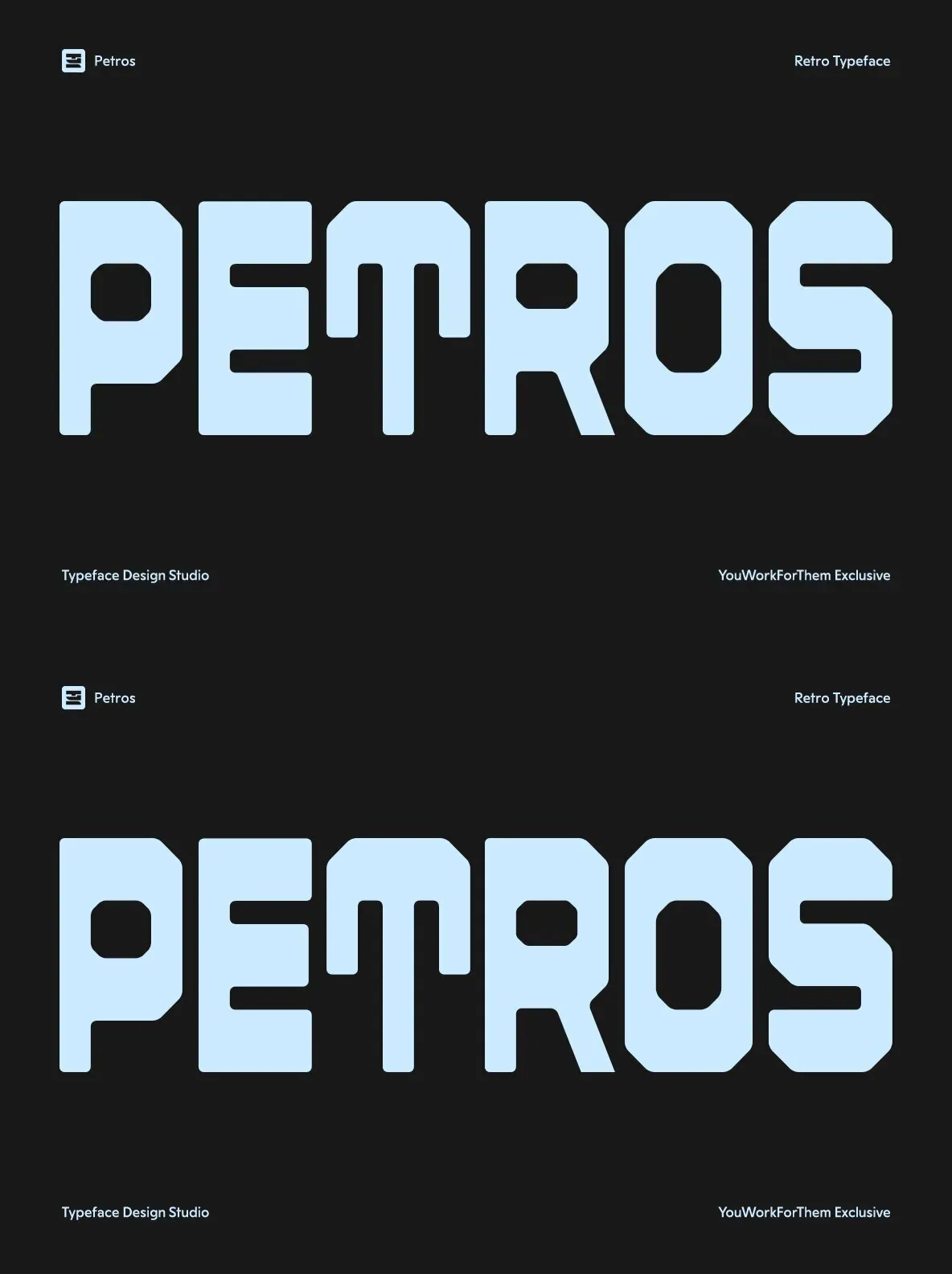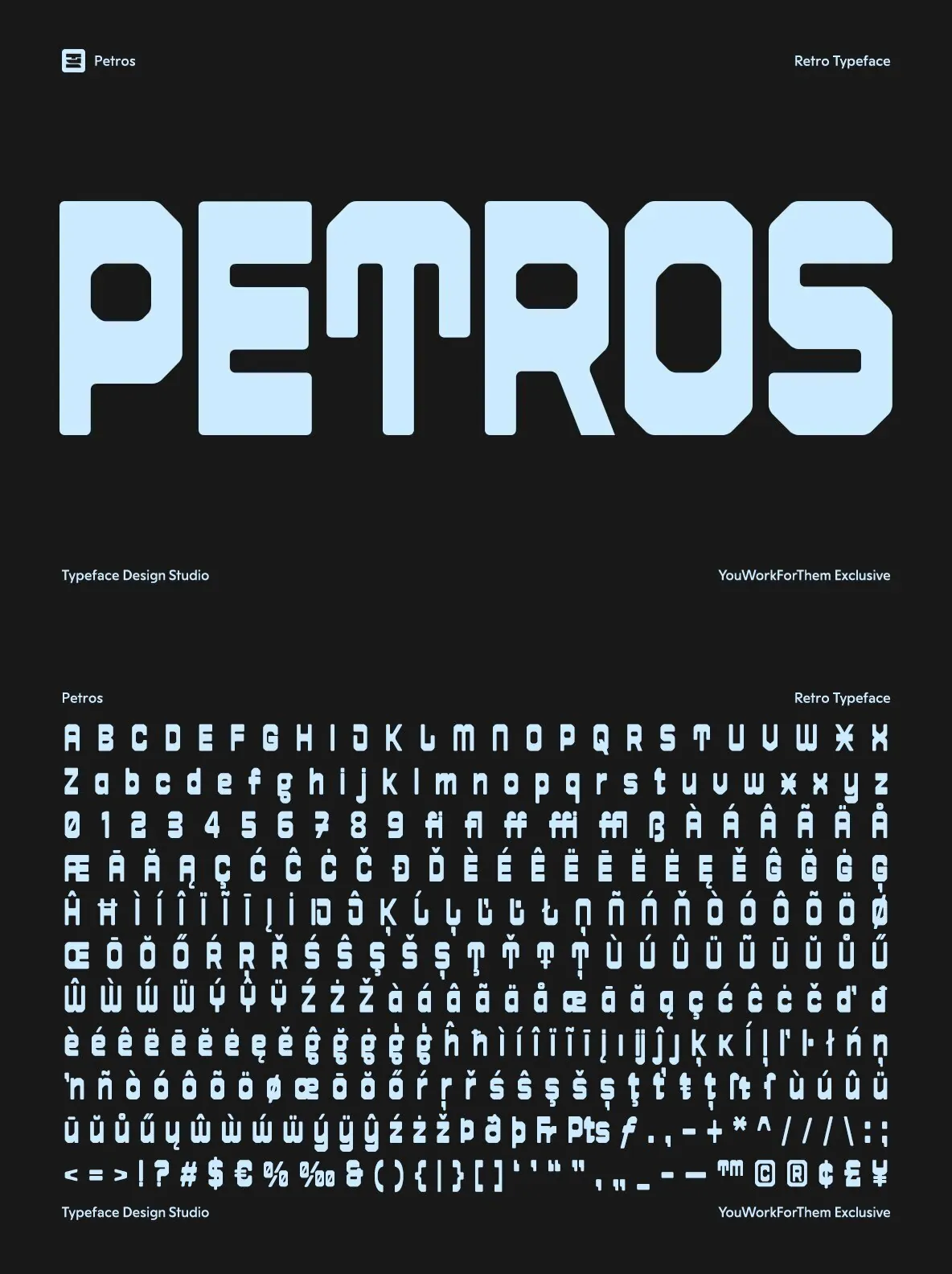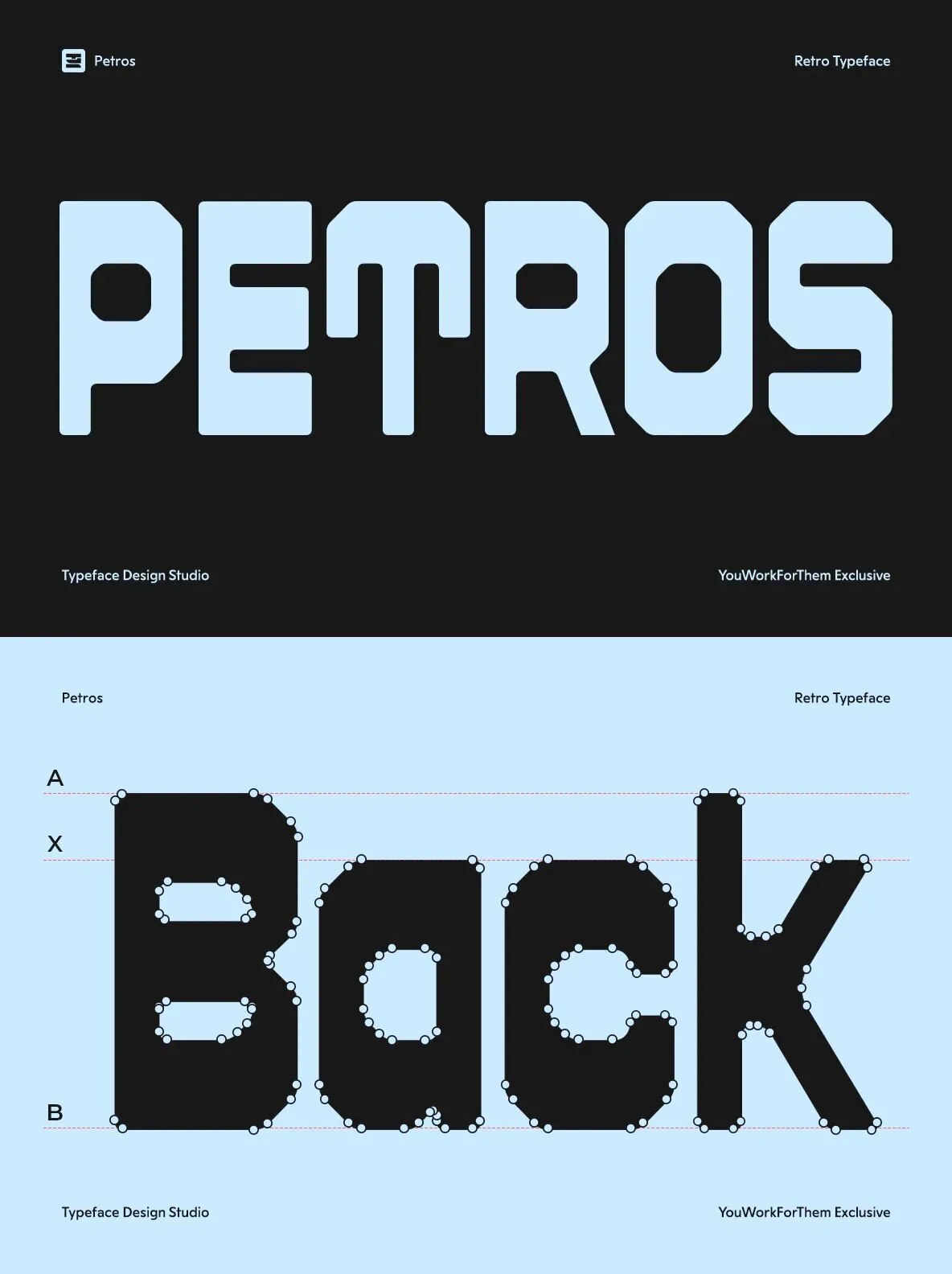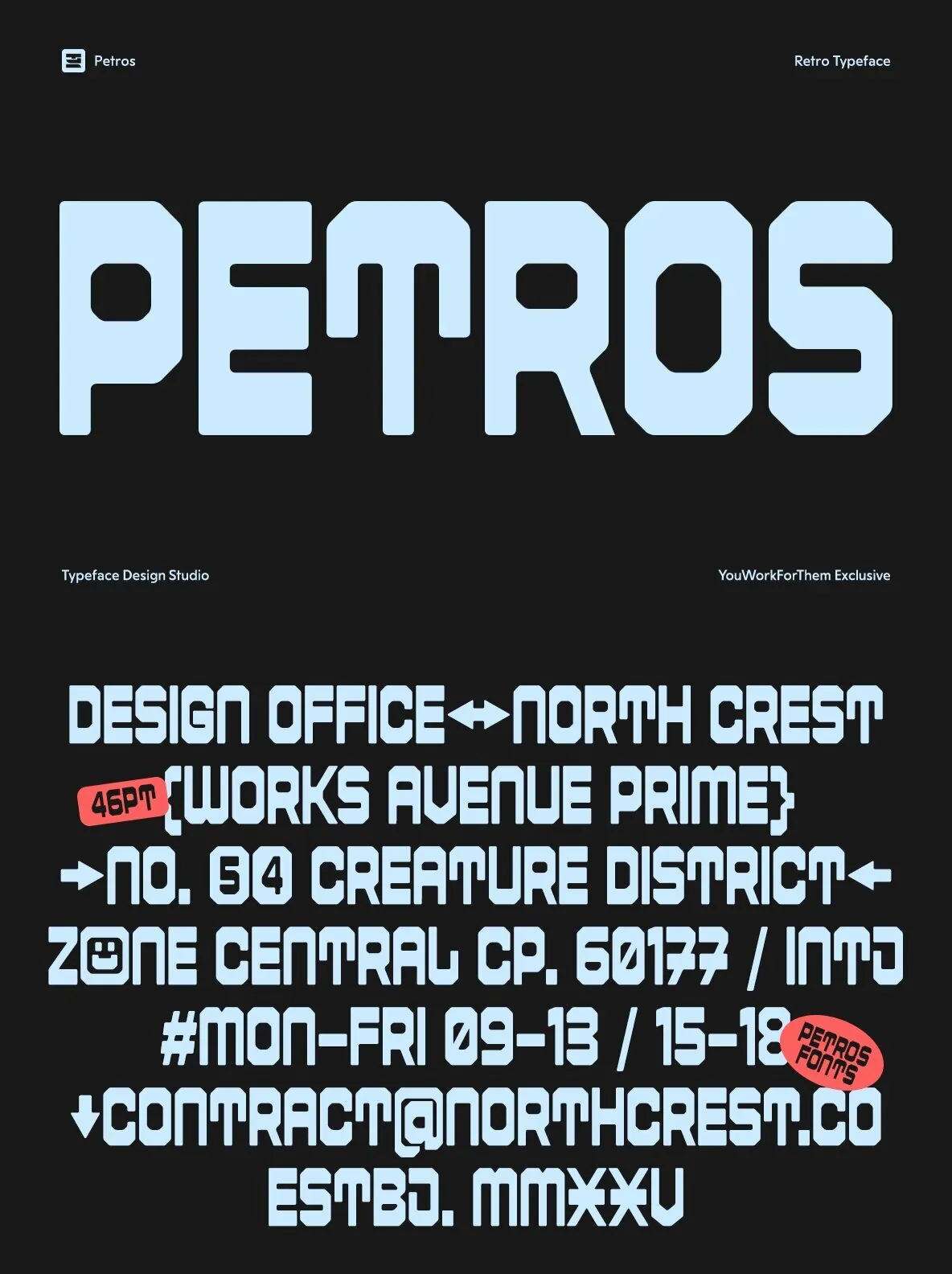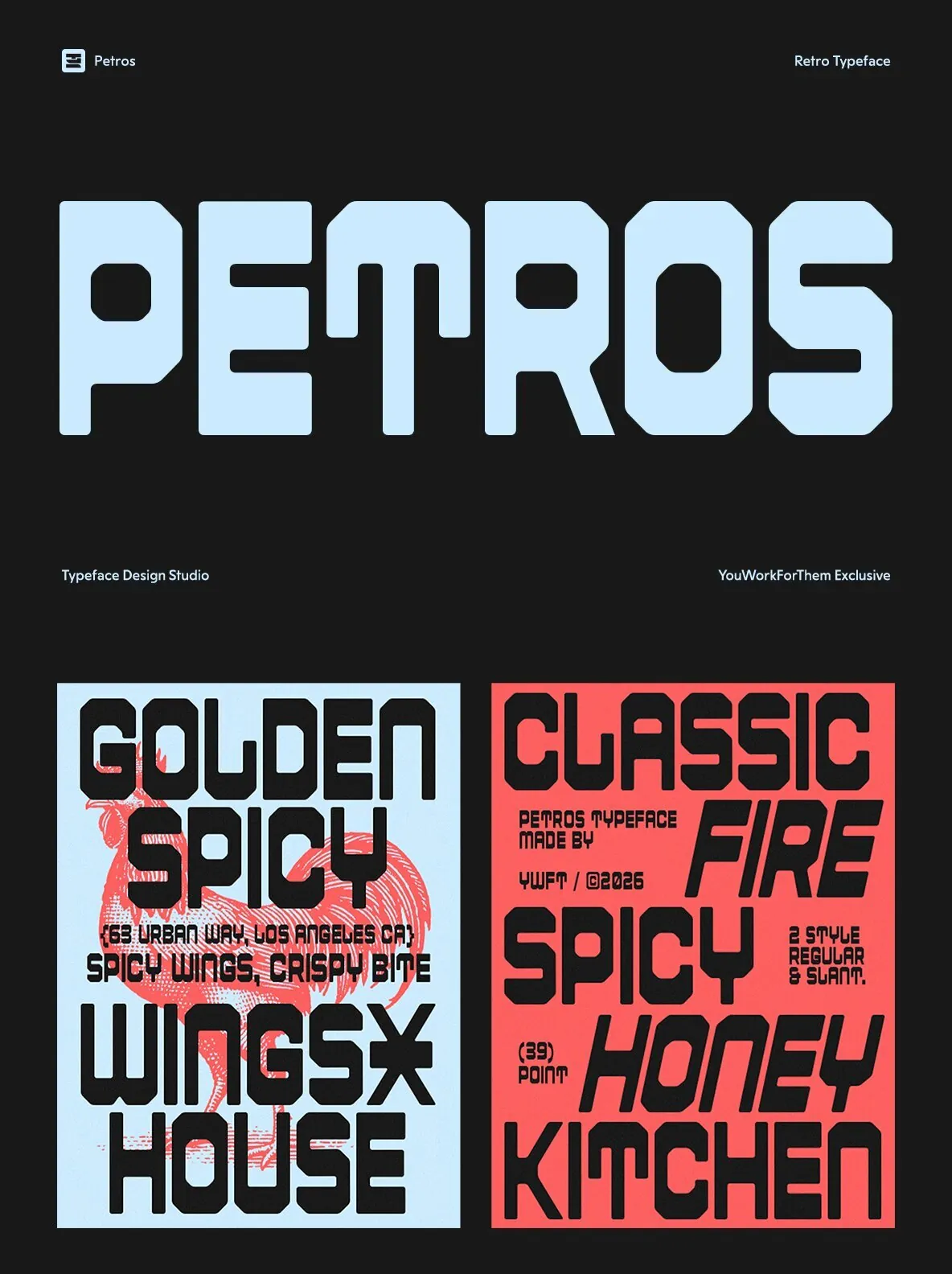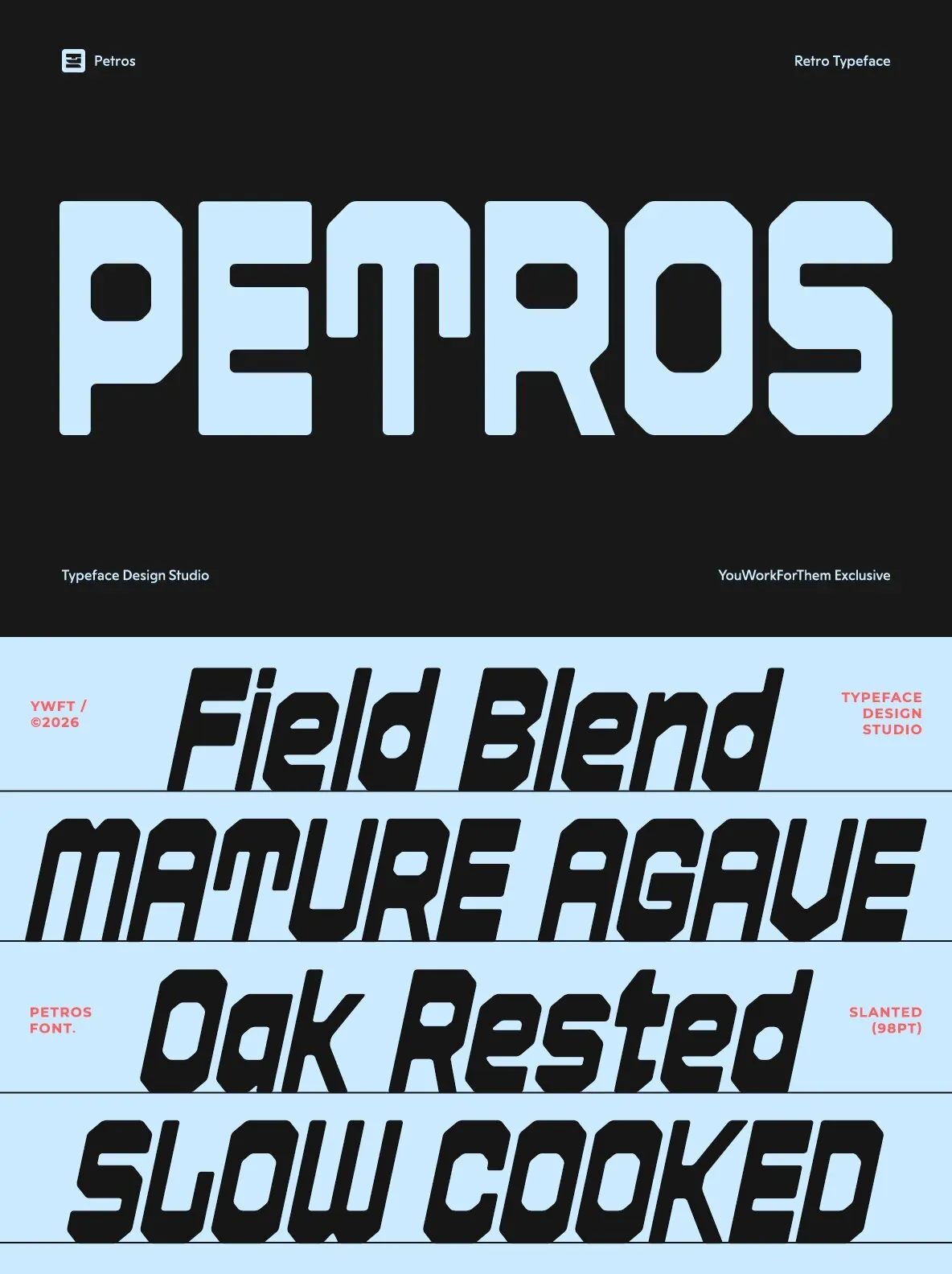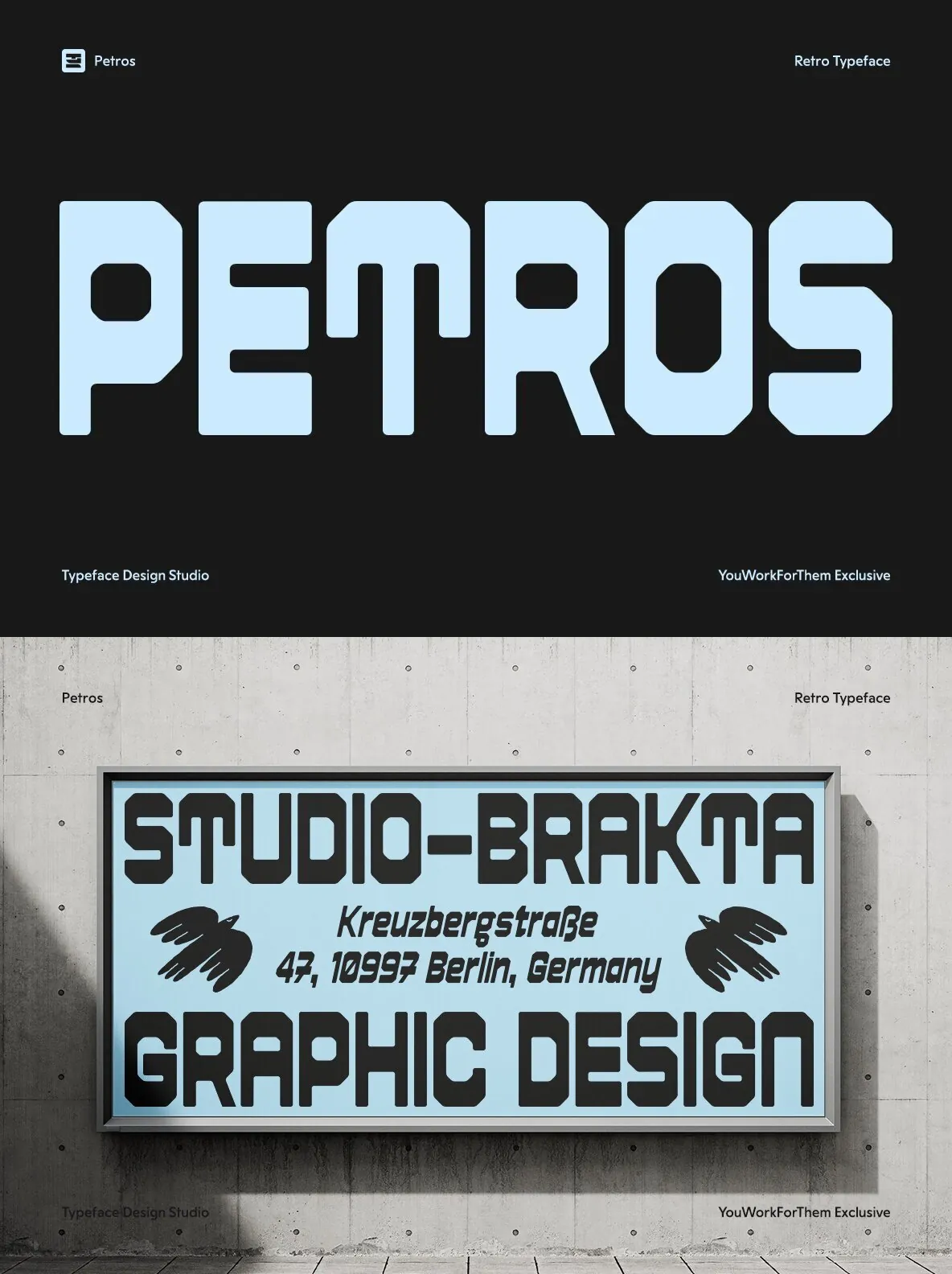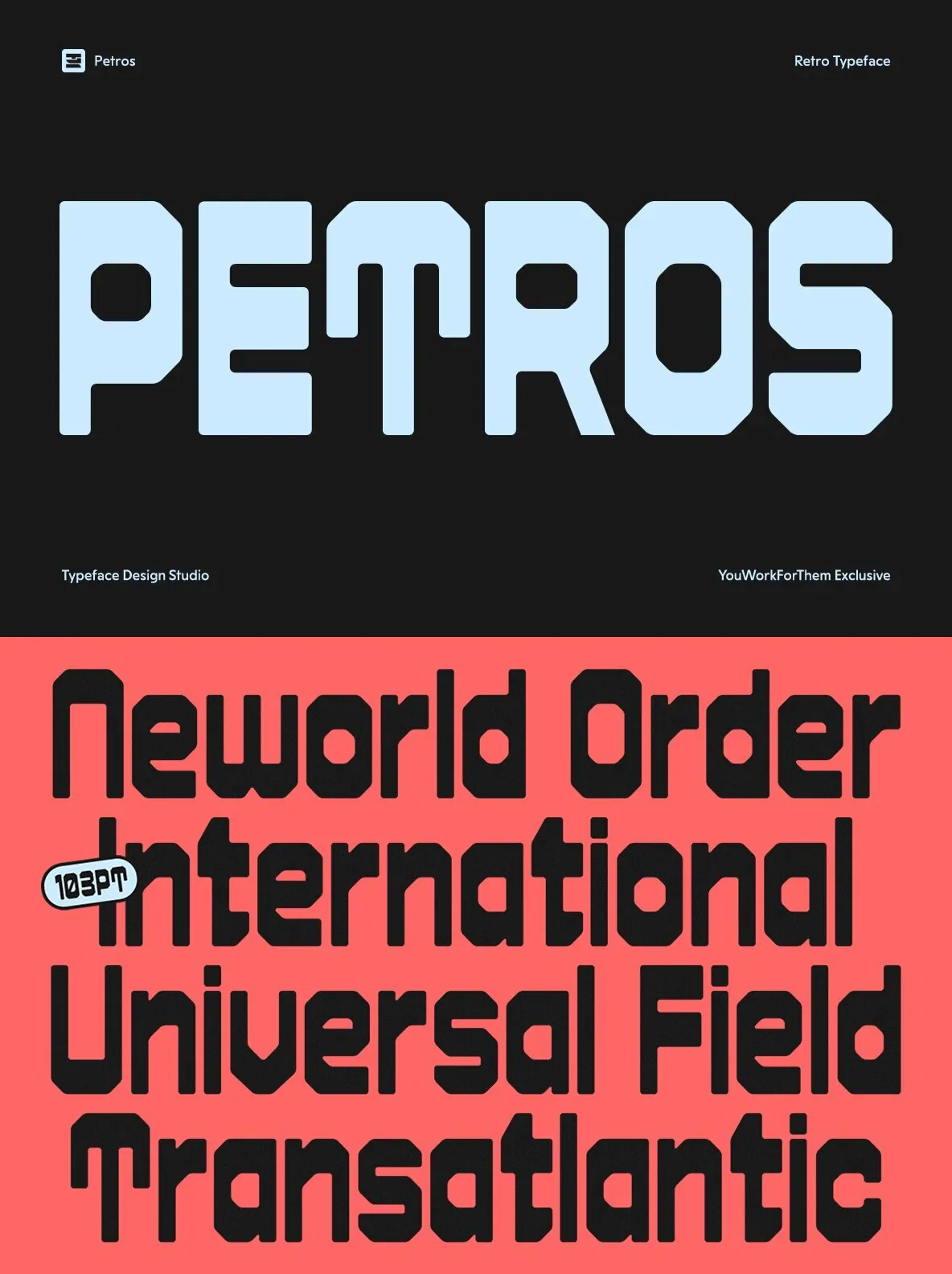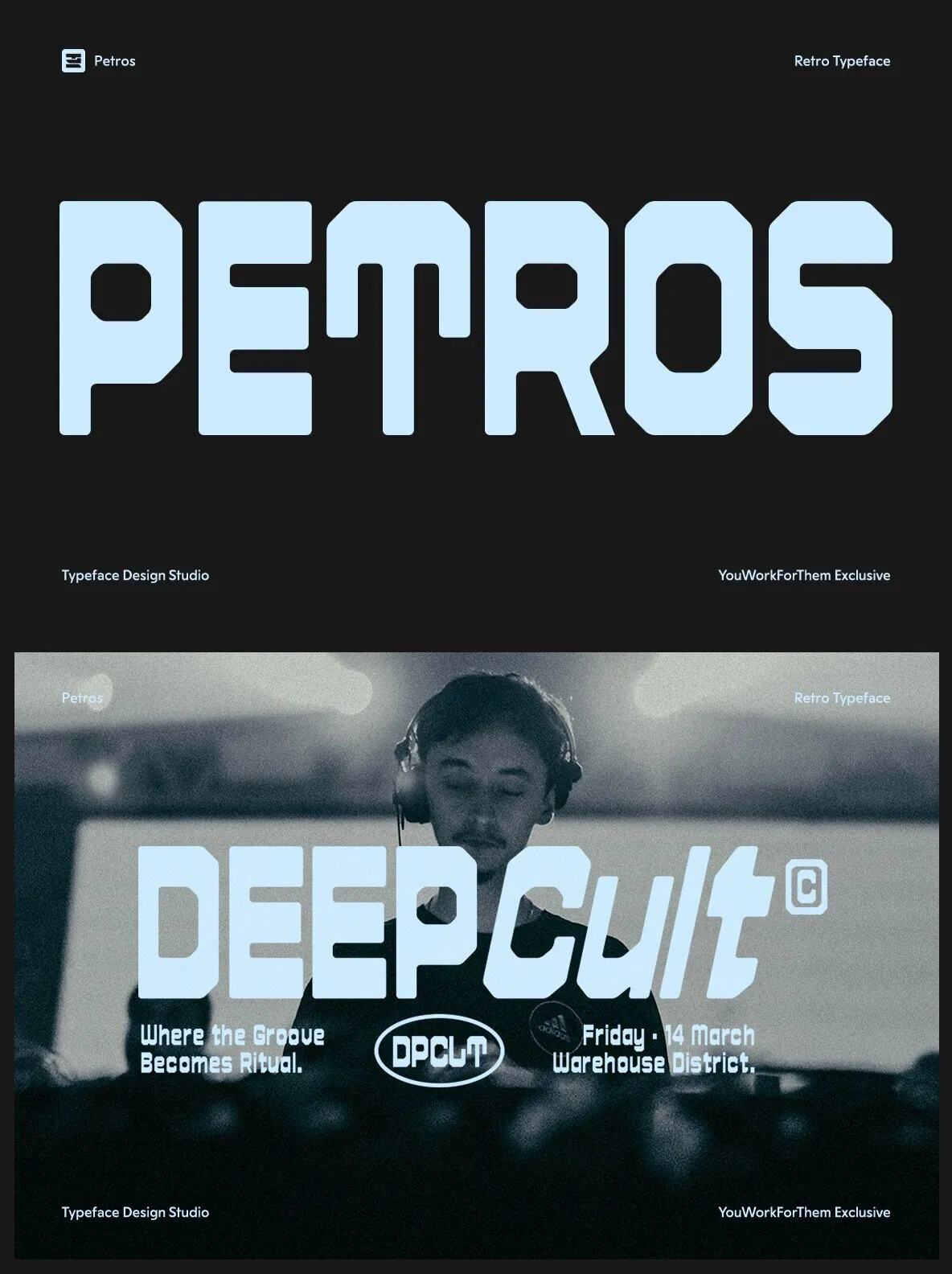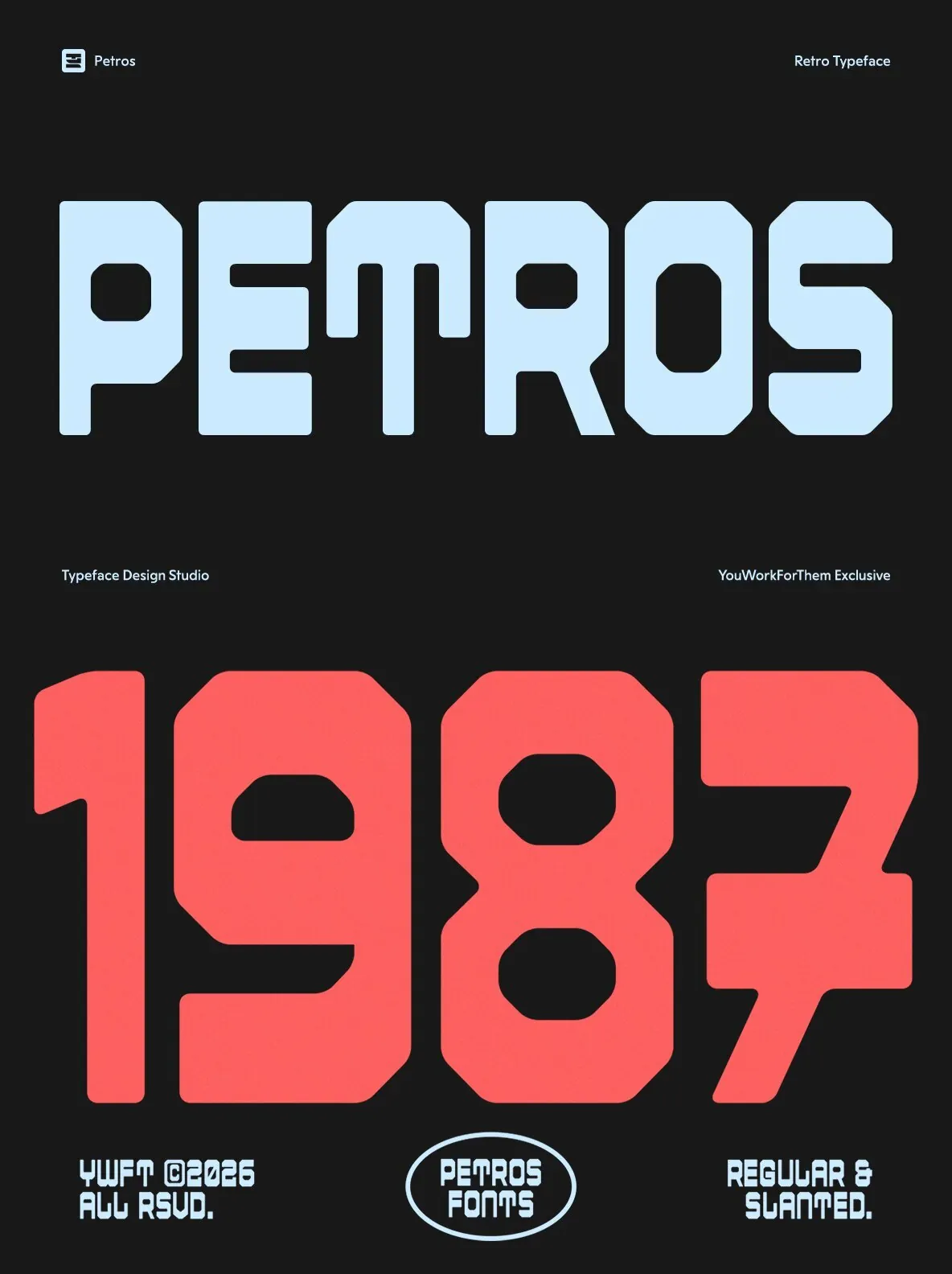
Petros Font
Petros: Condensed Sans-Serif with a Y2K European Techno Edge
Petros is a condensed display typeface crafted for contemporary digital environments. It merges the tall, structured forms reminiscent of techno styles from the late-1990s and early-2000s European rave flyers.
The letterforms in Petros are bold and compact, designed to maintain legibility at both large and small scales. While the typeface subtly nods to German techno aesthetics and Y2K graphic design elements, it is not a revival nor a retro reinterpretation. Instead, it is developed specifically for today’s digital-first workflows where clarity, impact, and consistent adaptability across various platforms are essential.
Petros excels in narrow and vertical layouts, making it suitable for social media graphics, posters, branding applications, user interface headlines, and motion design projects. Its tall and commanding proportions preserve presence even in confined spaces, such as 9×16 reels and mobile-centric designs.
Features:
Two styles: Regular and Slanted, both fully developed.
Petros offers a refined balance of historic inspiration and contemporary utility, tailored to meet the demands of graphic designers working across digital and print mediums.